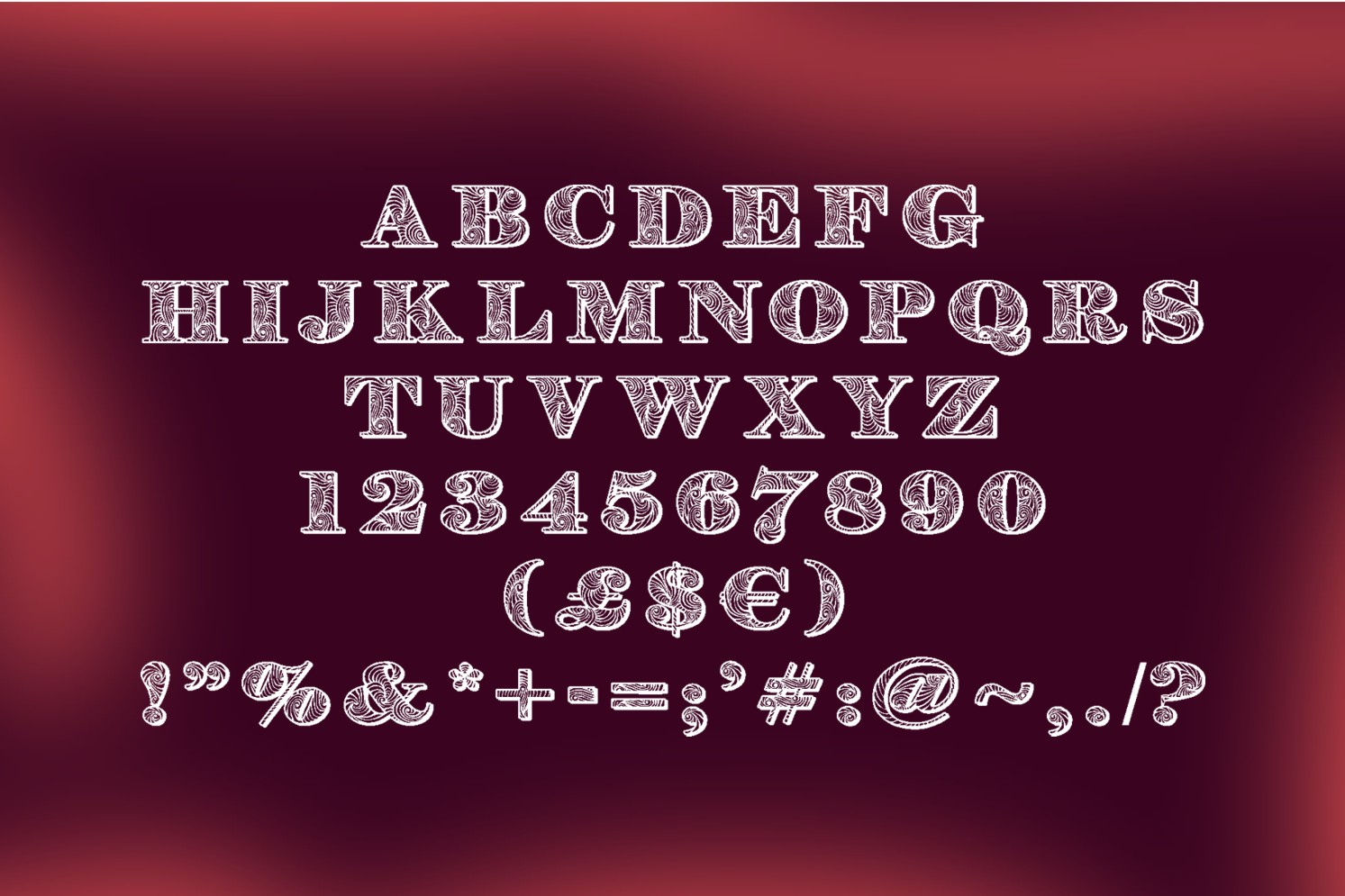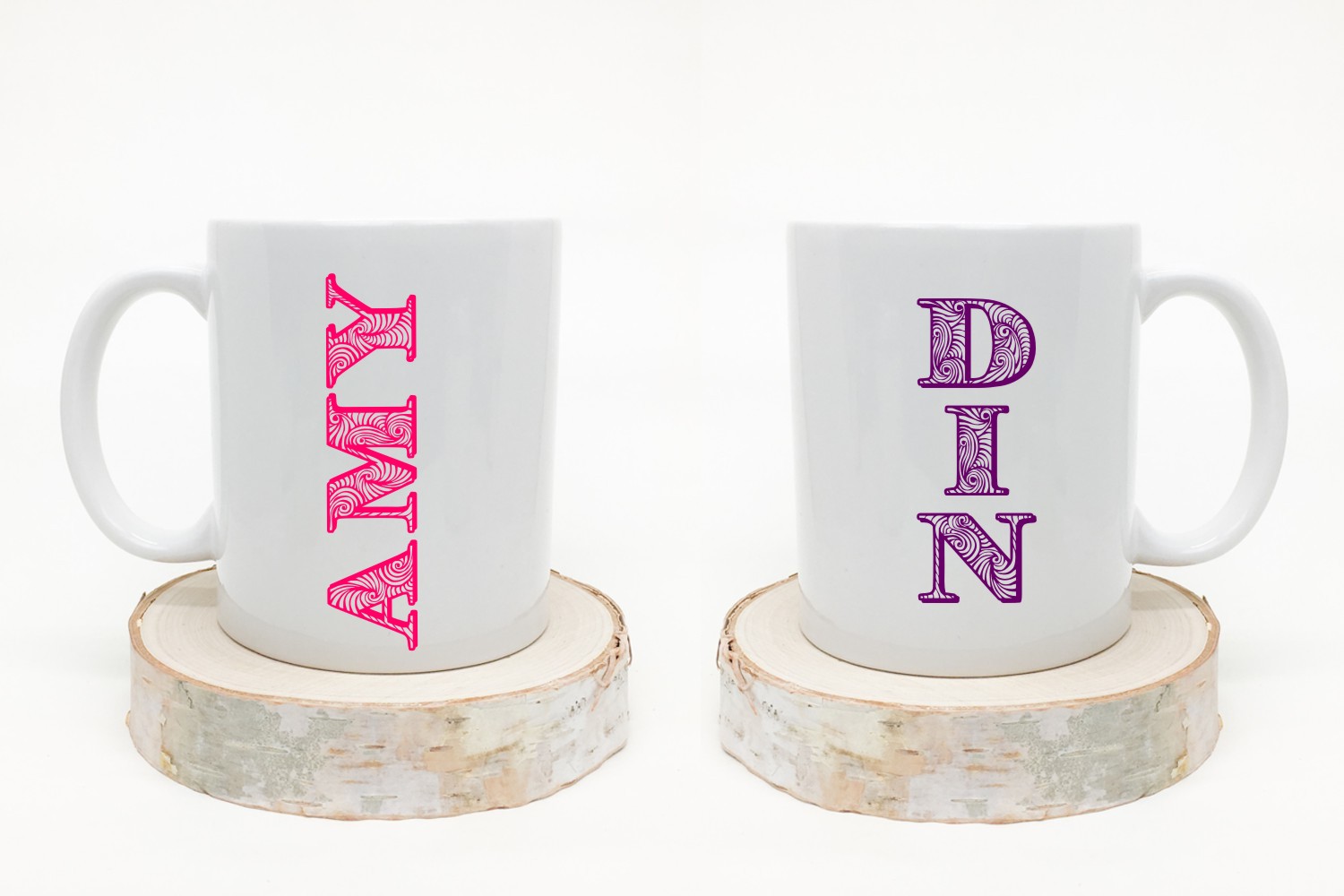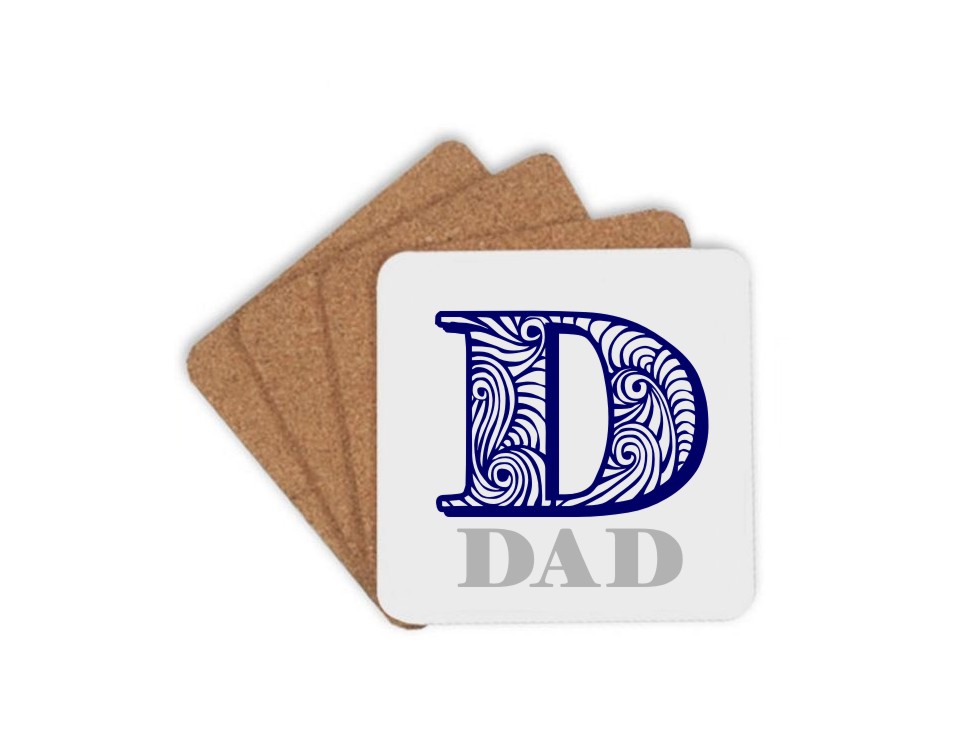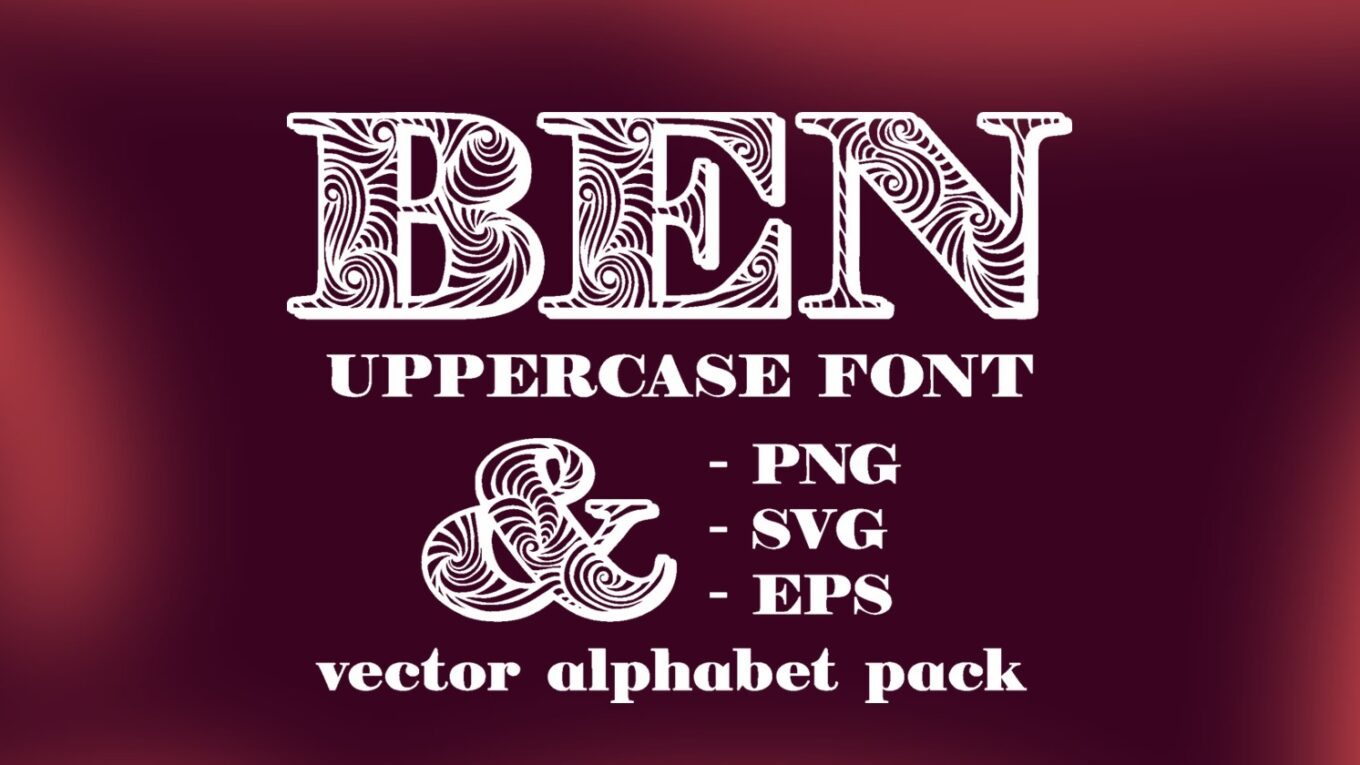
Introducing Ben Font: Elevate Your Designs with Luxurious Monograms
Are you a designer or crafter looking to add a touch of elegance and sophistication to your projects? Look no further than Ben Font, a stunning decorative monogram font that’s perfect for creating festive and charming designs. With its intricate details and luxurious feel, Ben Font is sure to take your work to the next level.
Ben Font is a decorative monogram font that’s specifically designed to add a touch of luxury and sophistication to your designs. Whether you’re working on a wedding invitation, a branding project, or a craft tutorial, this font is sure to impress. Its intricate details and elegant curves make it perfect for creating beautiful monograms, logos, and other design elements.
What Makes Ben Font So Special?
So, what sets Ben Font apart from other fonts on the market? Here are just a few things that make it truly special:
- Intricate Details: Ben Font is extremely intricate, with delicate curves and ornate details that give it a truly luxurious feel.
- Festive and Charming: This font has a playful, festive vibe that’s perfect for creating designs that are fun and engaging.
- Monogram-Perfect: Ben Font is specifically designed for creating beautiful monograms, making it perfect for wedding invitations, branding projects, and other applications where a personal touch is desired.
- Extremely Versatile: Whether you’re working on a digital project or a print design, Ben Font is versatile enough to use in a wide range of applications.
How to Use Ben Font in Your Designs
Using Ben Font in your designs is easy! Here are a few tips to get you started:
- Pair it with a Simple Font: Ben Font is a statement font, so it’s best paired with a simple font that won’t compete with it. Try pairing it with a clean sans-serif font for a beautiful contrast.
- Use it for Headlines and Titles: Ben Font is perfect for headlines and titles, where its intricate details and luxurious feel can really shine.
- Add it to Your Branding: If you’re looking to add a touch of elegance to your branding, Ben Font is a great choice. Use it for your logo, business cards, or other marketing materials.
Tips and Tricks for Working with Ben Font
Here are a few more tips and tricks to help you get the most out of Ben Font:
- Experiment with Colors: Ben Font looks beautiful in a wide range of colors, from metallic gold and silver to rich jewel tones. Experiment with different colors to find the perfect look for your design.
- Play with Size: Ben Font is a statement font, so don’t be afraid to make it big! Use it in large sizes to create a dramatic impact, or scale it down for a more subtle look.
- Combine it with Other Fonts: Ben Font is a versatile font that can be paired with a wide range of other fonts. Try combining it with a script font or a bold sans-serif font for a unique look.
Ben Font is a stunning decorative monogram font that’s perfect for designers and crafters looking to add a touch of luxury and sophistication to their projects. With its intricate details, festive vibe, and luxurious feel, this font is sure to take your work to the next level. Whether you’re working on a wedding invitation, a branding project, or a craft tutorial, Ben Font is a great choice. So why wait? Download Ben Font today and start creating beautiful, luxurious designs that will impress your clients and inspire your audience!